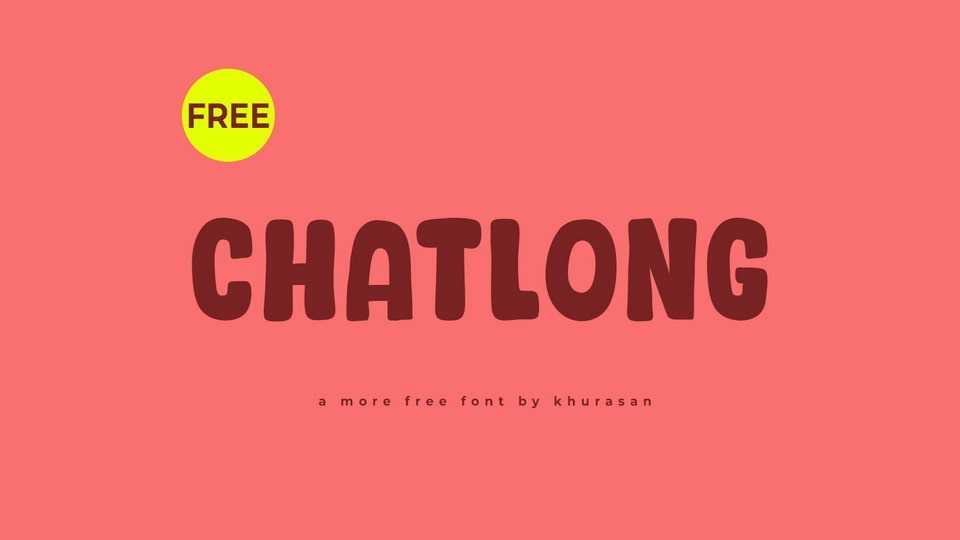
Download Chatlong font, a cute and friendly hand-drawn cartoon typeface that radiates warmth and charm. Chatlong font is lovingly crafted with playful strokes and adorable details, capturing the whimsical essence of a doodle brought to life.